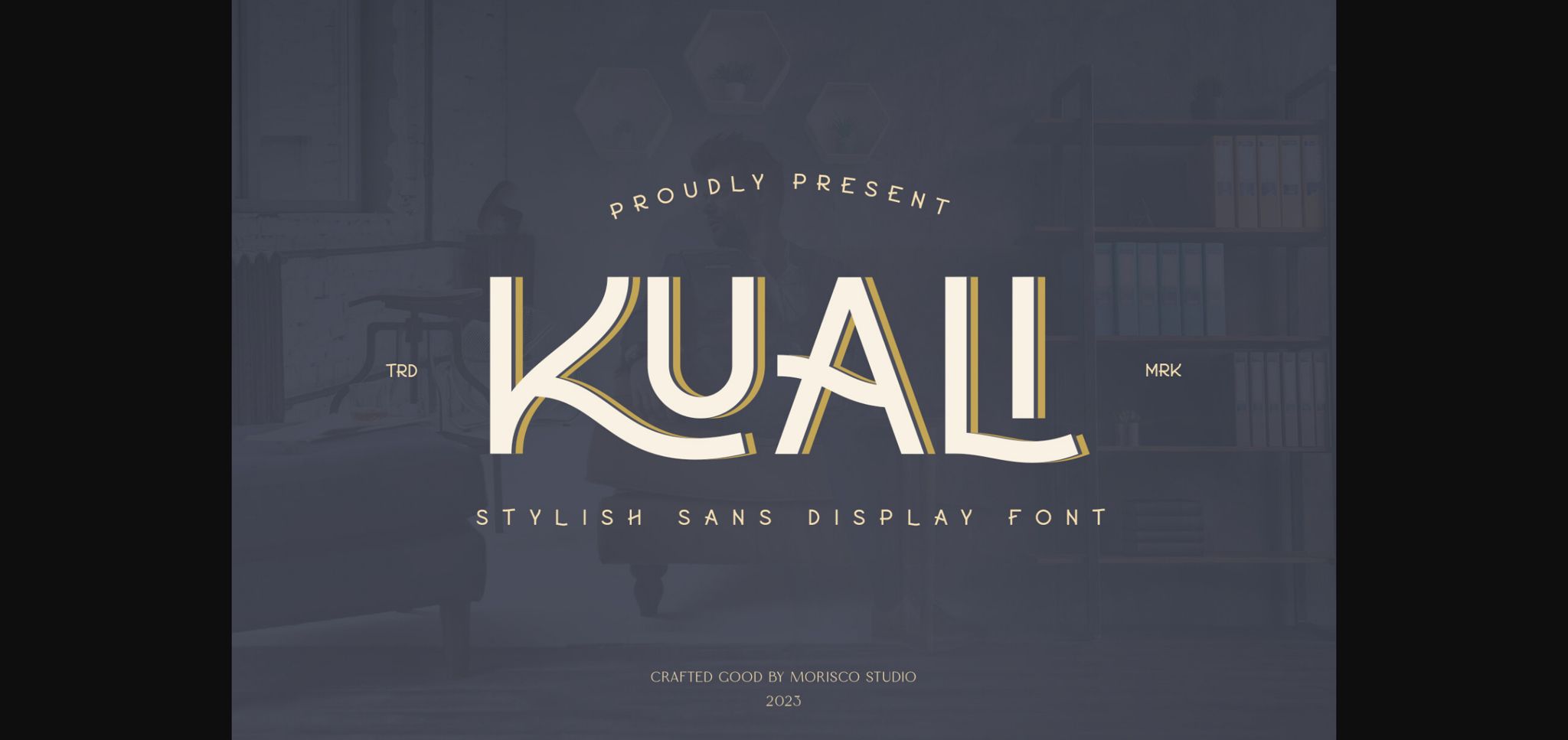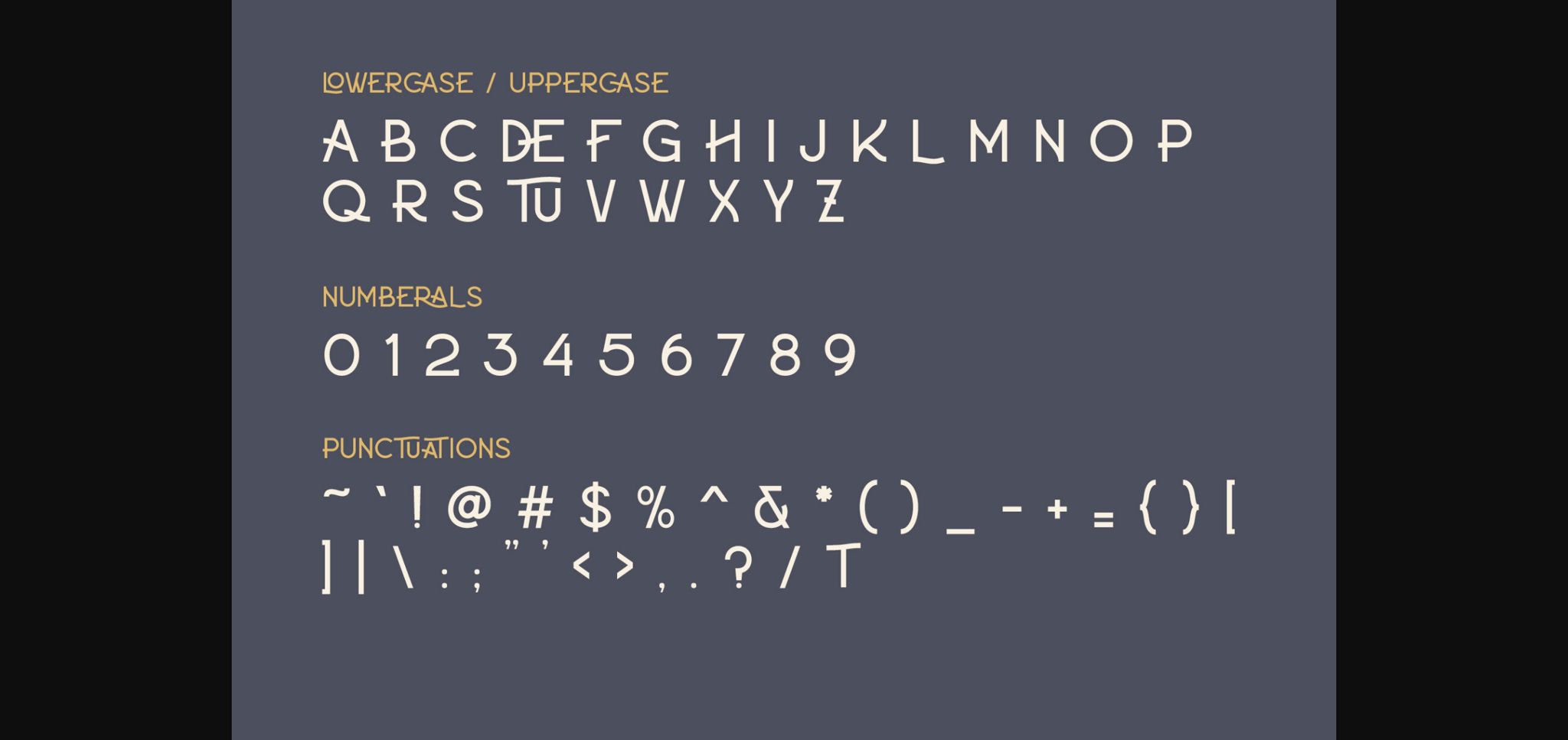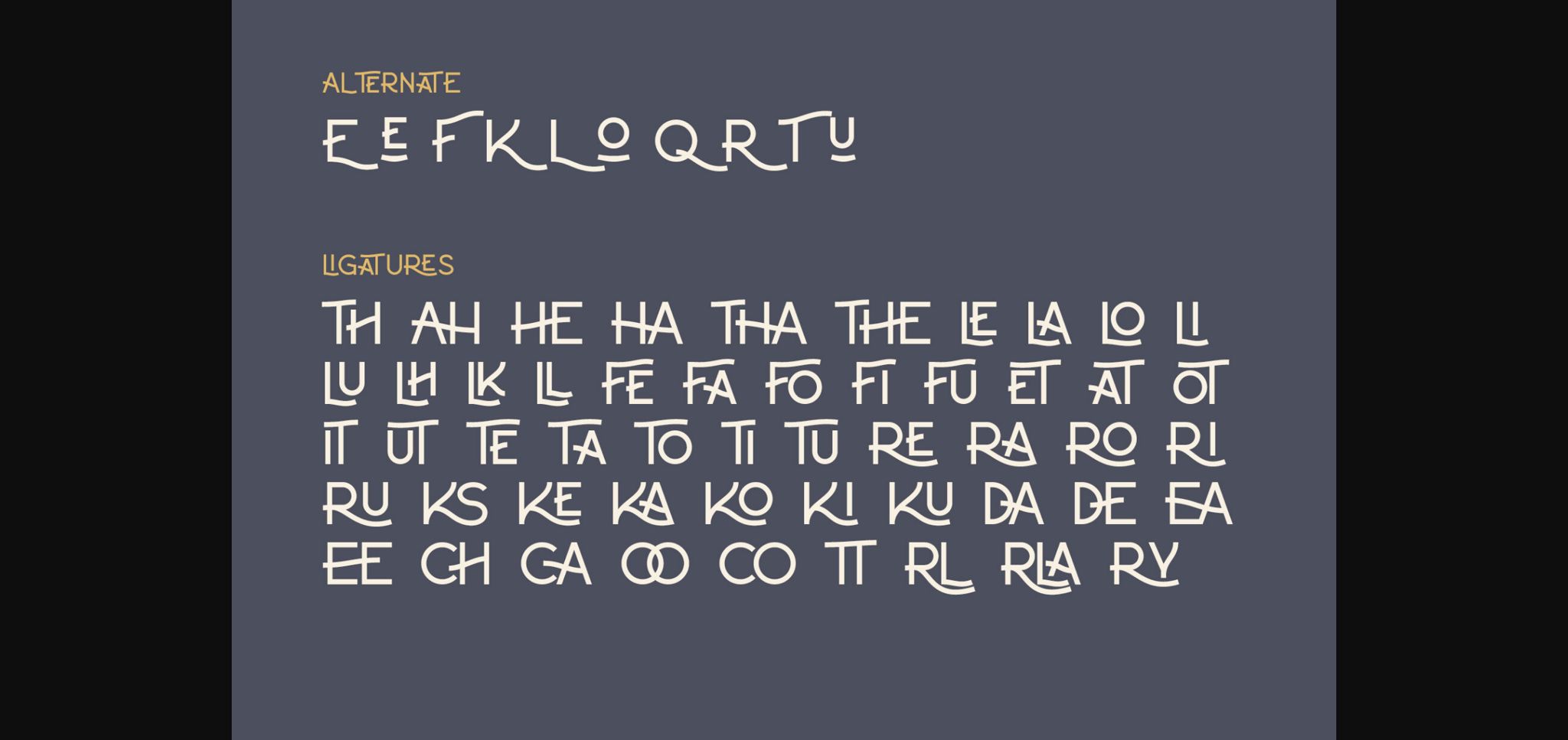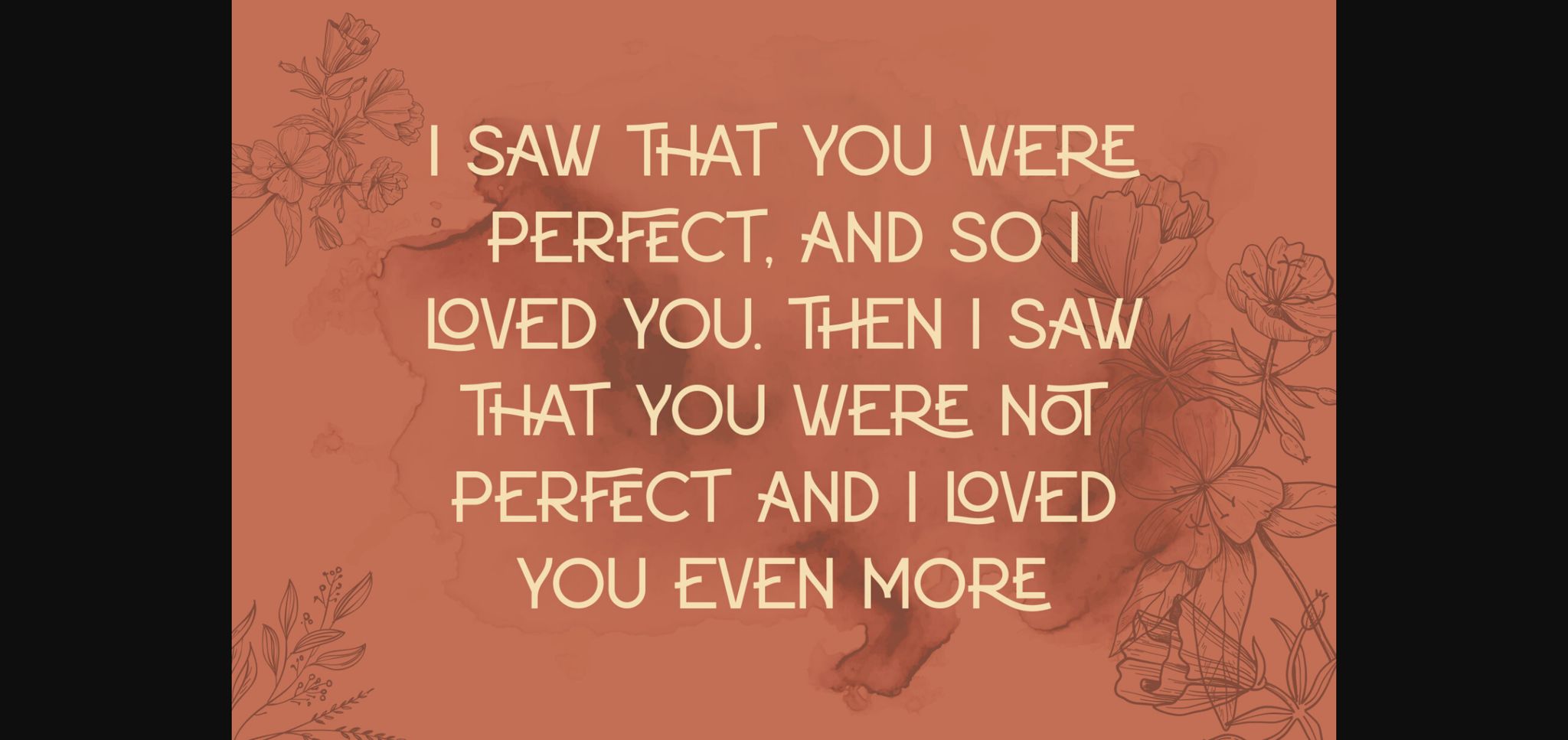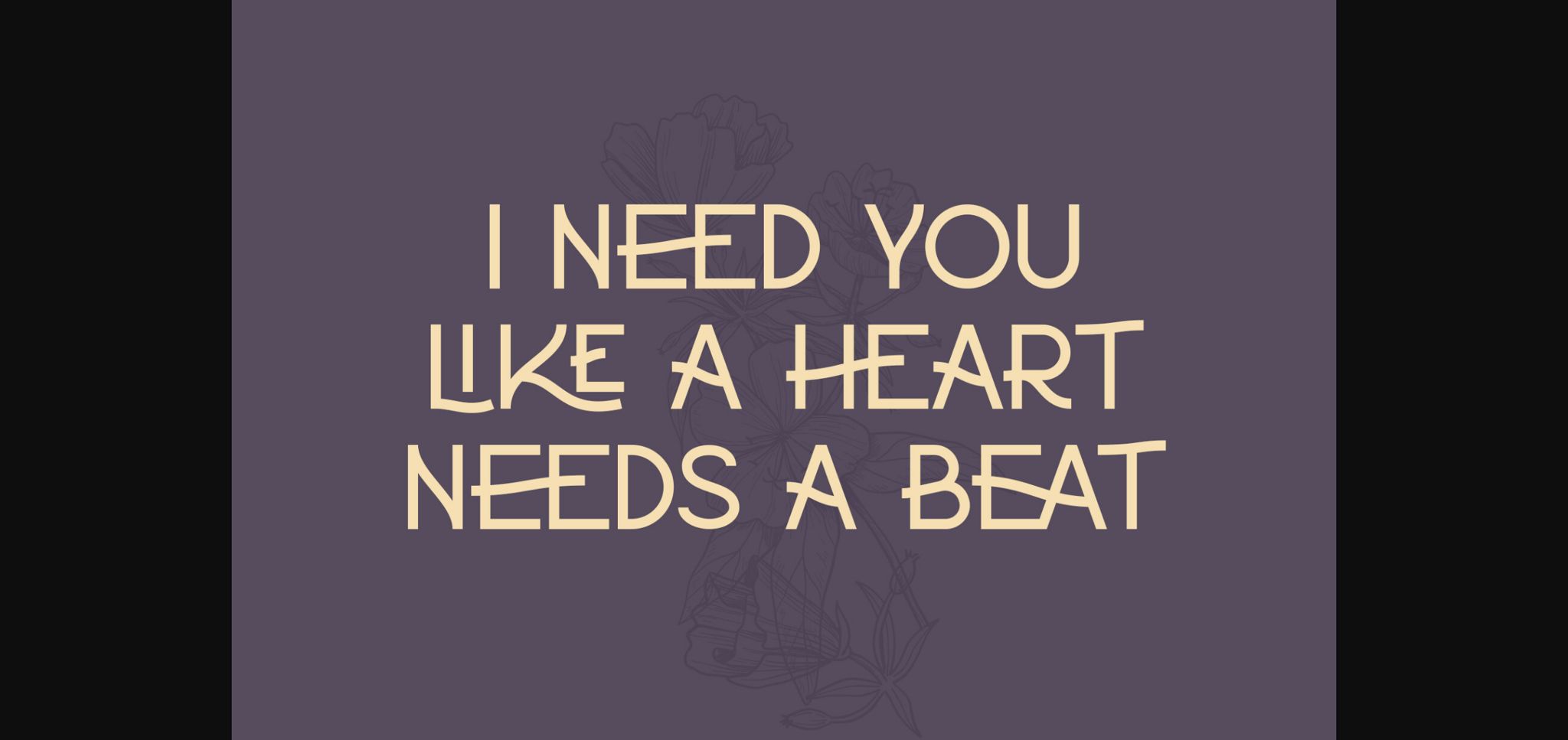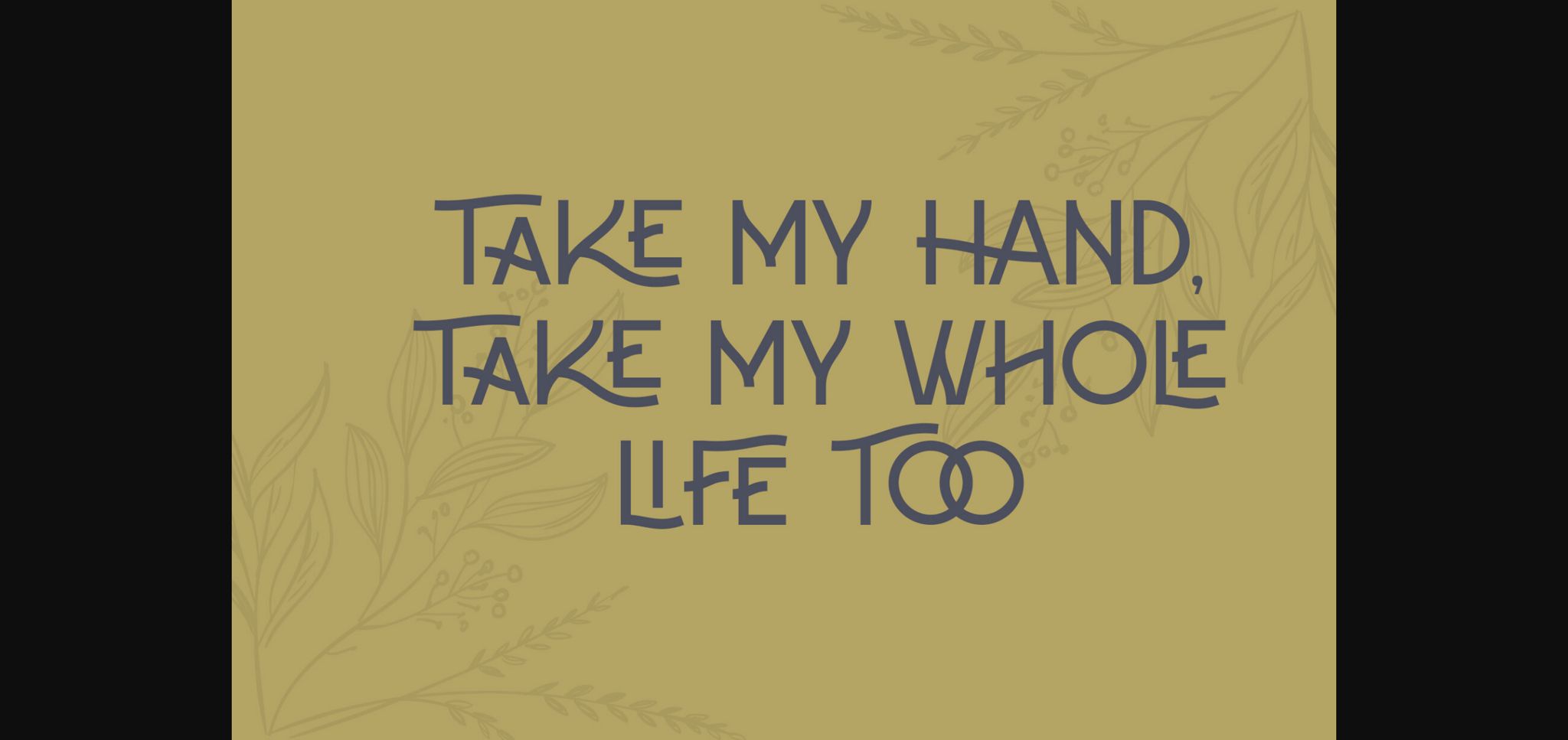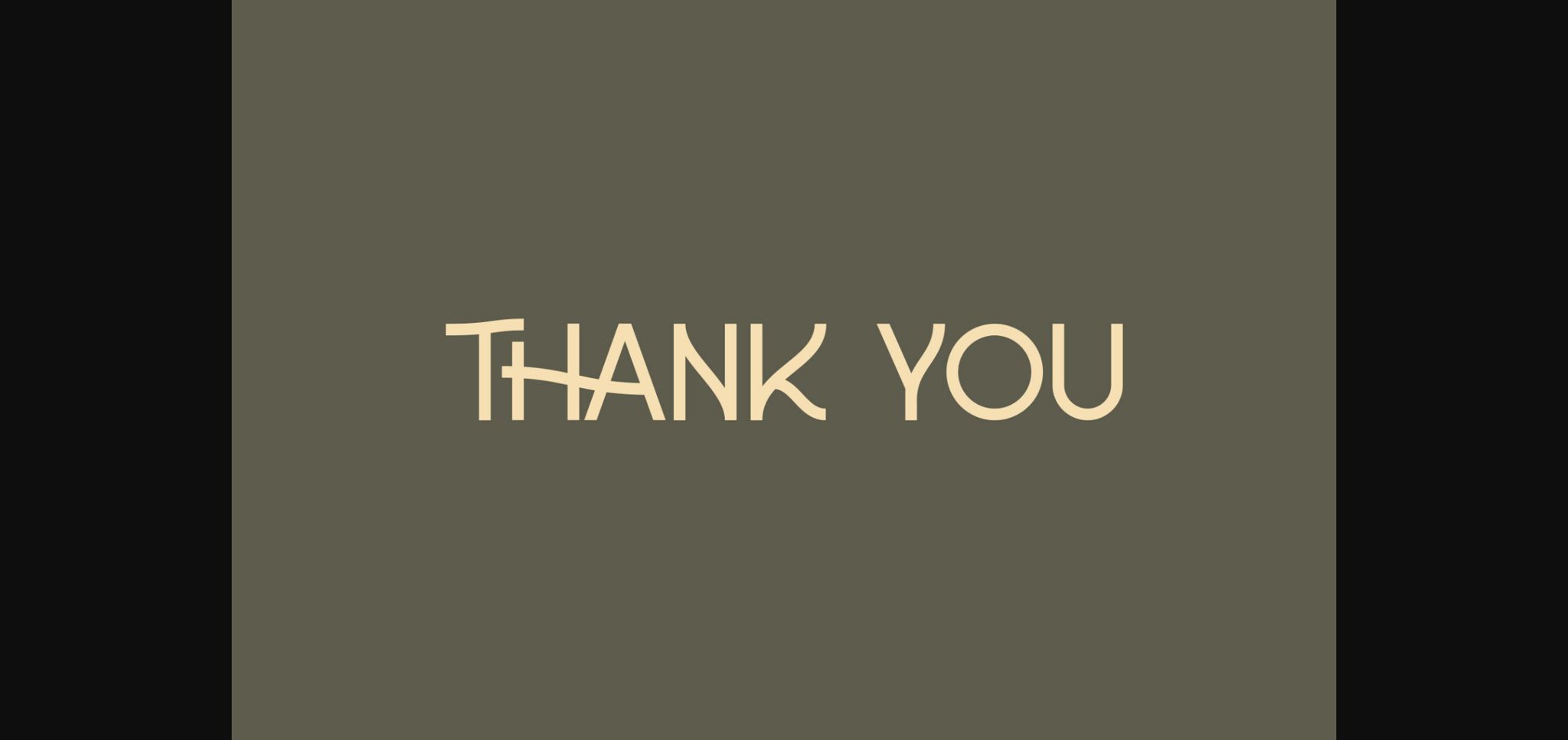
Kuali Font
About Kuali Font
Kuali is a stylish sans display font with a unique character. This typeface is well-suited for headlines and any project, like branding, print templates, logos, and more.